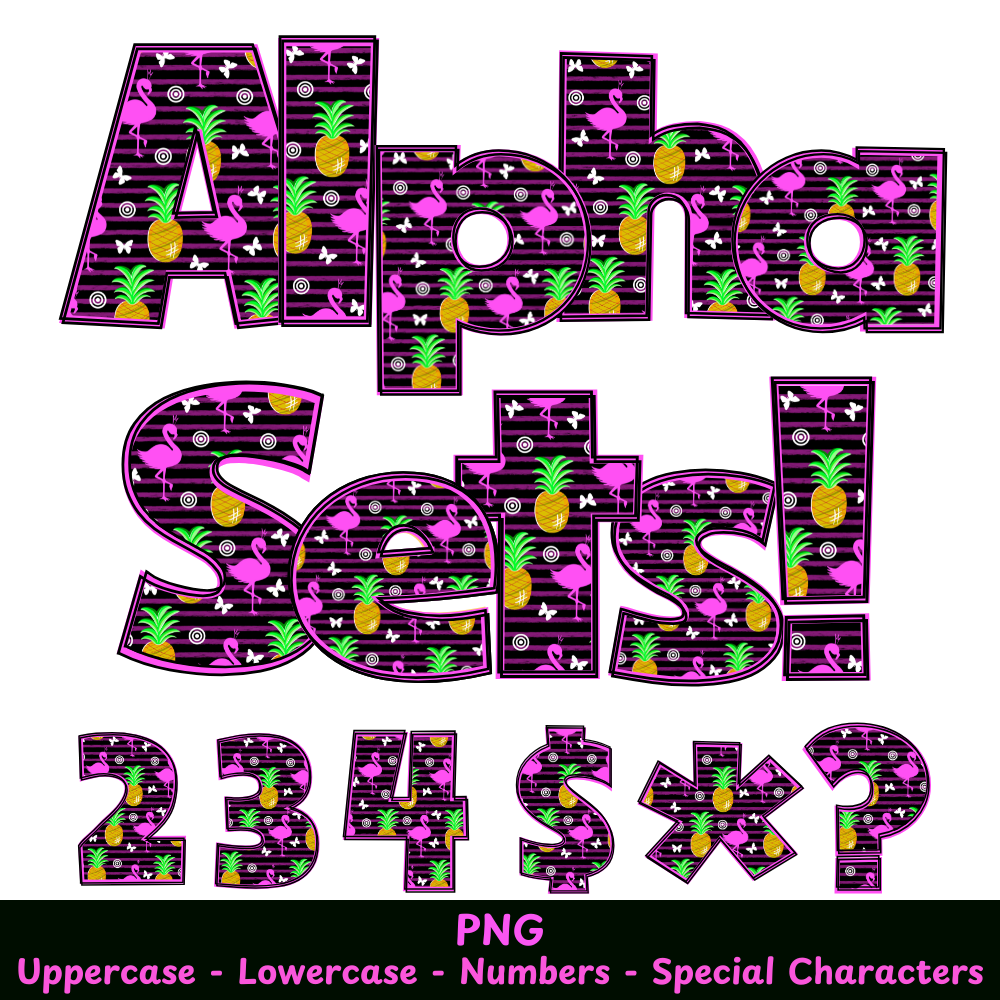
Tropical Flamingos PNG Font
Tropical Flamingos Alpha Set PNG Font Pack
Introducing the Tropical Flamingos PNG Font, perfect for adding a touch of the tropics to your crafts. With high-quality PNG files, this font is versatile and easy to use in various projects, including sublimation. Let your creativity take flight with these beautiful flamingo designs.